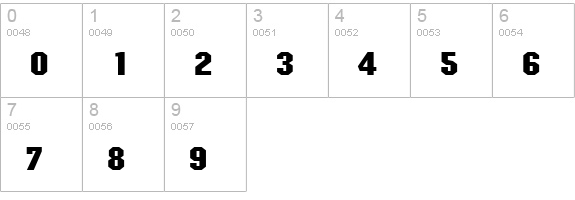
ATROX normal Font Details
ATROX normal is the standard, neutral variant in the ATROX typeface family \xE2\x80\x94 well suited to general body text, paragraphs, and standard typographic work.
ATROX normal font is a versatile and modern typeface that combines sleek lines with a classic design. Its clean and sophisticated look makes it perfect for a wide range of projects, from branding to editorial design. The ATROX normal font is designed to be easily readable yet eye-catching, making it ideal for both digital and print applications. As an added bonus, the ATROX normal font is available for free download at FontsMarket.com. This means you can easily access and use this stylish font in your projects without any cost. Whether you're a designer looking to enhance your creations or a business owner wanting to elevate your brand identity, the ATROX normal font is a fantastic choice that won't break the bank. Download it today and add a touch of elegance to your designs with this exquisite typeface.